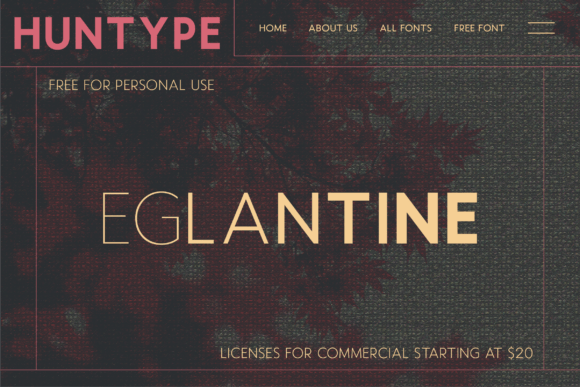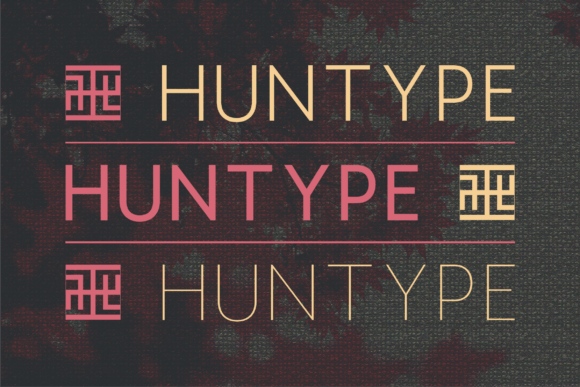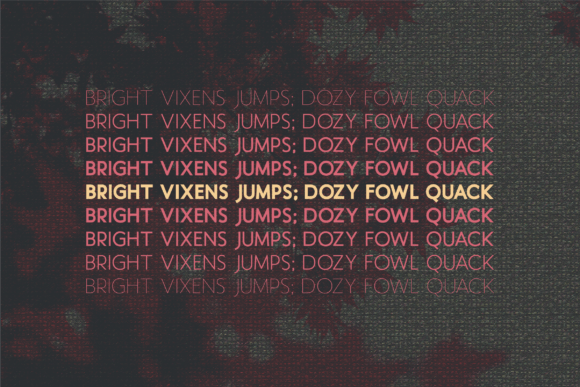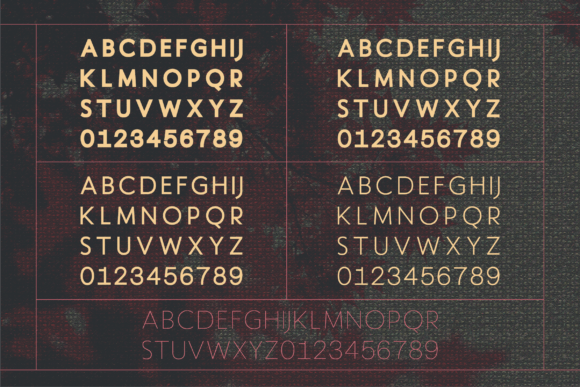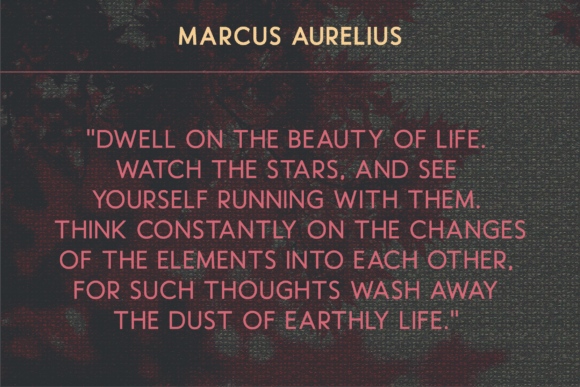
Introducing Eglantine Sans Serif Font Family: Elevate Your Designs with Elegance and Versatility
In the world of typography, a font can make all the difference in the success of a design project. A well-crafted font can elevate your brand’s visual identity, convey your message with clarity, and leave a lasting impression on your audience. This is where the Eglantine Font Family comes into play – a meticulously designed sans serif font family that embodies elegance, modernity, and versatility.
A Family of Five: Flexibility at Its Finest
The Eglantine Font Family is comprised of five distinct weights: THIN, LIGHT, REGULAR, BOLD, and BLACK. This range of weights offers a wide array of creative possibilities, making it an ideal choice for designers and content creators. Whether you’re aiming for a subtle and delicate touch or a bold and impactful statement, this font family has got you covered.
Unparalleled Elegance and Sophistication
Eglantine Font Family boasts a seamless blend of sophistication and contemporary style, making it perfect for projects that demand a high level of elegance. The font’s clean lines, precise curves, and carefully crafted letterforms exude a sense of refinement and poise. The THIN and LIGHT weights are ideal for body text, captions, and other small-scale applications, while the REGULAR weight serves as a versatile workhorse for a wide range of design projects.
Make a Statement with Bold and Black Weights
When you need to make a bold statement, the BOLD and BLACK weights of the Eglantine Font Family are the perfect choice. These heavier weights add a level of drama and emphasis to your text, making them ideal for headlines, titles, and other attention-grabbing applications. The BOLD weight adds a touch of confidence and authority, while the BLACK weight delivers a strong and impactful presence.
The Eglantine Font Family’s versatility knows no bounds. Its range of weights and elegant design make it suitable for a wide range of design projects, including:
- Branding and logos: Create a lasting impression with a custom logo or brand identity that exudes sophistication and elegance.
- Digital and print media: Use Eglantine Font Family for body text, headlines, and titles in newspapers, magazines, and digital publications.
- Web design: Enhance your website’s typography with a font family that’s optimized for digital use.
- Packaging and advertising: Make a bold statement with eye-catching packaging and advertisements.
Why Choose Eglantine Font Family?
So, what sets Eglantine Font Family apart from other font families? Here are just a few reasons why designers and content creators are falling in love with this elegant sans serif font:
- Unique blend of elegance and modernity: Eglantine Font Family’s distinctive design strikes the perfect balance between sophistication and contemporary style.
- Versatility: With five distinct weights, this font family offers a wide range of creative possibilities.
- High-quality design: Each letterform has been meticulously crafted to ensure precision, clarity, and beauty.
In conclusion, the Eglantine Font Family is a game-changer for designers and content creators. Its elegant design, versatility, and range of weights make it the perfect choice for a wide range of design projects. Whether you’re aiming for a subtle and delicate touch or a bold and impactful statement, this font family is sure to elevate your designs and leave a lasting impression on your audience.